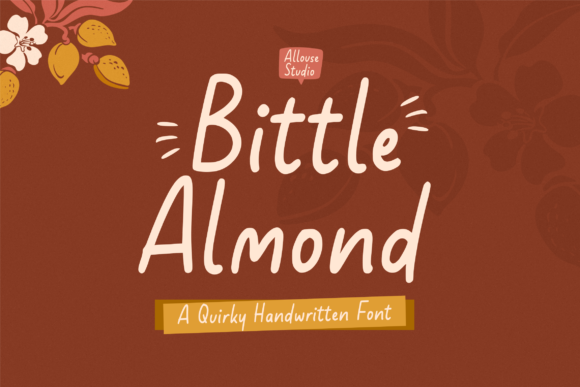
You know that moment when you’re working on a design project, and you’re just not feeling the vibe? The words on the page feel dull, the colors lack excitement, and you’re stuck in a creative rut. That’s when you need a little pick-me-up – a fresh font that can transport your design to a whole new level.
Enter the Bittle Almond Font, a delightful, handwritten font that’s as sweet as its name suggests. Crafted with love and care, this font is designed to bring a touch of whimsy and charm to your designs. With its delicate, clean lines, Bittle Almond Font is perfect for adding a soft, romantic feel to your work. Whether you’re a designer, artist, or writer, this font is sure to become your new favorite companion.
Bittle Almond Font Key Features
- Font Family: Bittle Almond Font
- Character Set: Latin, Cyrillic, Greek, and Extended Latin characters
- Unique Characteristics: The Bittle Almond Font features a unique blend of modern and vintage elements, with a distinctive almond-shaped letterform and intricate details, making it ideal for use in design projects where a touch of elegance and sophistication is required.
Bittle Almond Font Review
Overall, I’m quite impressed with Bittle Almond Font. It has a unique blend of modern and vintage vibes that can work well in various design contexts. ✨ I love how the font’s almond shape gives it a playful feel, perfect for creative projects or brand identities that want to stand out.
- ✨ Unique design that’s not easily confused with other fonts
- ✨ Excellent for titles, headings, or other display text
- ✨ Works well in digital and print media
- ✨ Available in a range of weights and styles
- ⚠️ May not be the best choice for large blocks of text due to its playful nature
- ⚠️ Can be difficult to read at very small sizes
- ⚠️ May not be suitable for formal or conservative brand identities
In conclusion, Bittle Almond Font is a great addition to any designer’s toolkit. While it may not be perfect for every project, its unique design and versatility make it a great choice for creative and innovative designs. With some careful consideration of its limitations, you can unlock its full potential and create stunning designs that stand out.
For best results, use the font in headings and titles to create a visually appealing design.
For optimal results, use the font in combination with other design elements to create a cohesive look.
For best results, use the font in headings and titles to create a clear and readable design.
Use Bittle Almond Font in creative projects, such as:
– Food and beverage branding
– Children’s book illustrations
Remember to pair the font with complementary colors and design elements to create a unique and eye-catching look.
Alternatives to Bittle Almond Font
Pacifico Font is a beautiful, elegant script font perfect for creating a soft and delicate look. It’s ideal for use in wedding invitations, branding, and other design projects where a touch of sophistication is needed.
Comparison to Bittle Almond Font: Pacifico Font has a more refined and classic look compared to Bittle Almond Font, which has a more playful and whimsical feel. Pacifico Font is better suited for formal designs, while Bittle Almond Font is more suitable for casual and creative projects.
Great Vibes Font is a modern, stylish script font that’s perfect for creating a fun and energetic look. It’s ideal for use in branding, social media graphics, and other design projects where a bold and playful feel is needed.
Comparison to Bittle Almond Font: Great Vibes Font has a more dynamic and expressive look compared to Bittle Almond Font, which has a more subtle and delicate feel. Great Vibes Font is better suited for projects that require a high level of energy and playfulness, while Bittle Almond Font is more suitable for projects that require a touch of elegance and sophistication.
Carolyna Pro Font is a modern, elegant script font that’s perfect for creating a sophisticated and refined look. It’s ideal for use in branding, packaging, and other design projects where a touch of luxury is needed.
Comparison to Bittle Almond Font: Carolyna Pro Font has a more polished and refined look compared to Bittle Almond Font, which has a more casual and playful feel. Carolyna Pro Font is better suited for formal designs, while Bittle Almond Font is more
Q: Does Bittle Almond Font support languages other than English?
Bittle Almond Font includes a basic Latin character set, as well as some additional characters for languages such as French, German, and Italian. However, for more extensive language support, we recommend using a font that is specifically designed for that language.